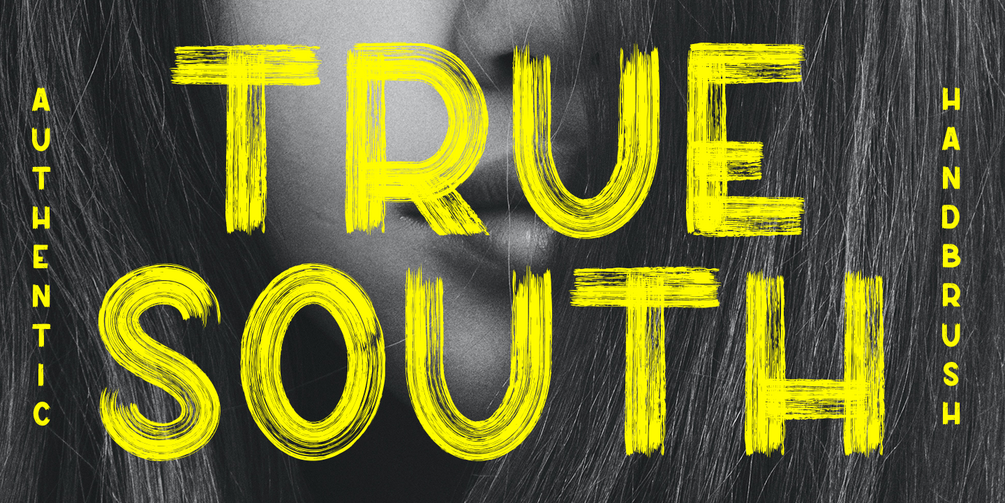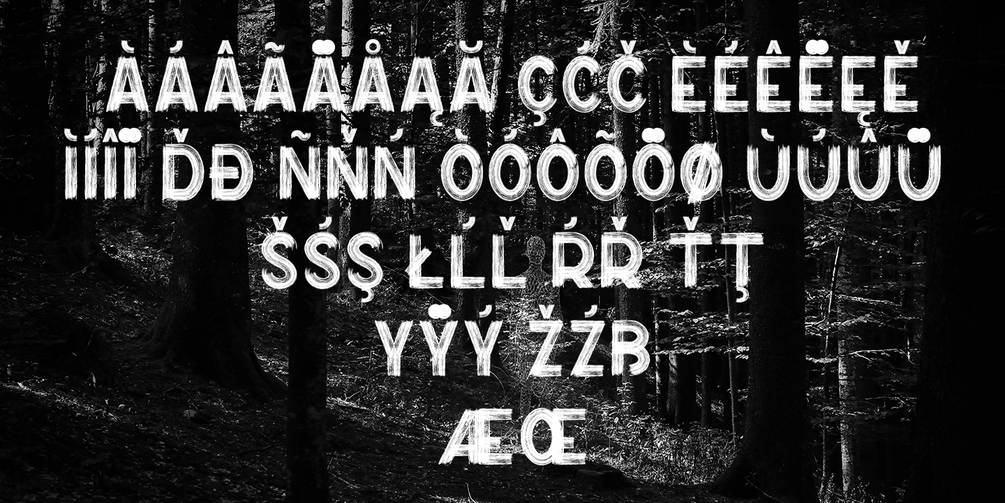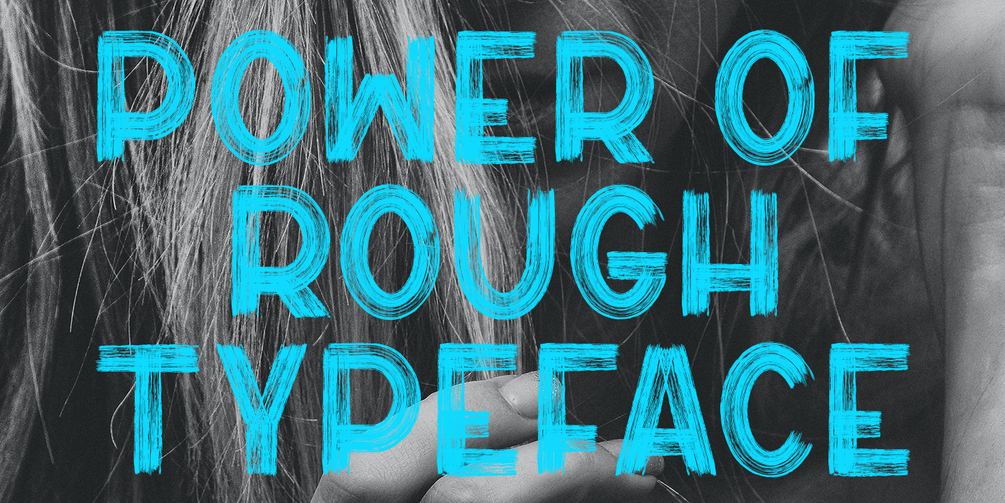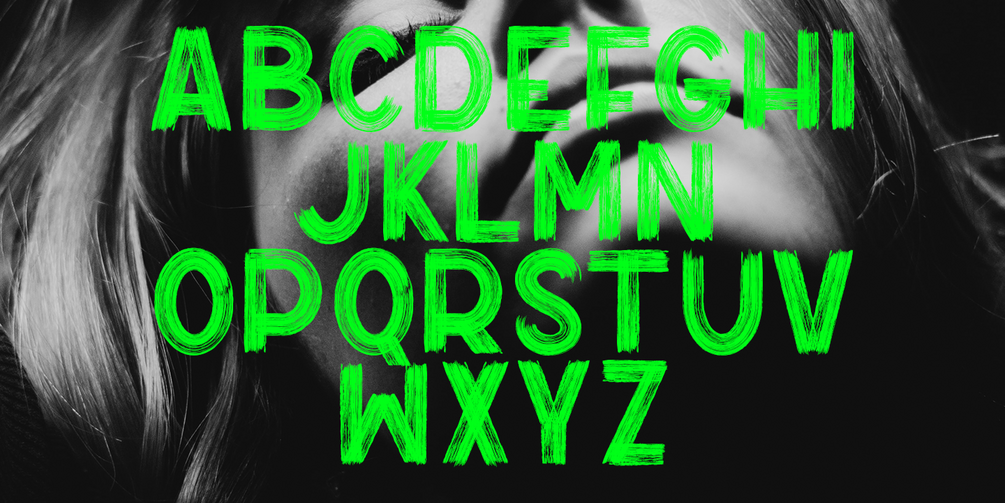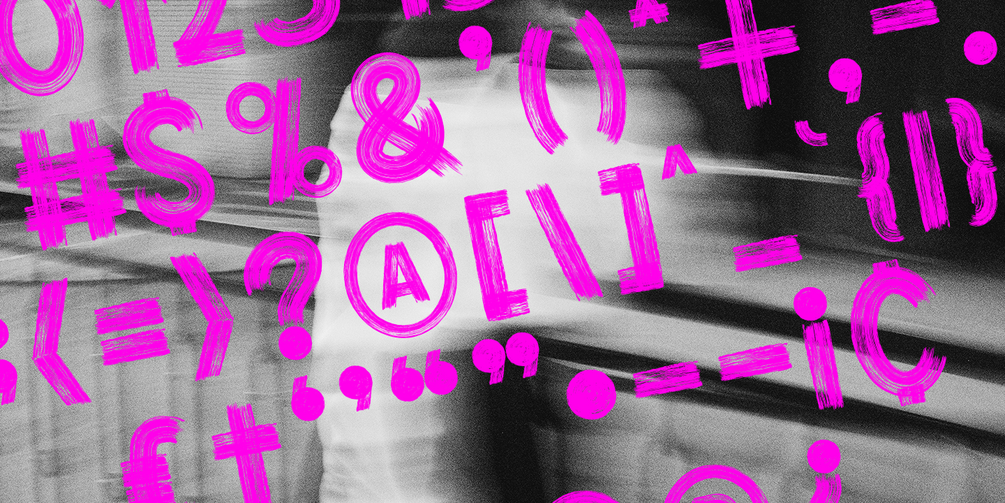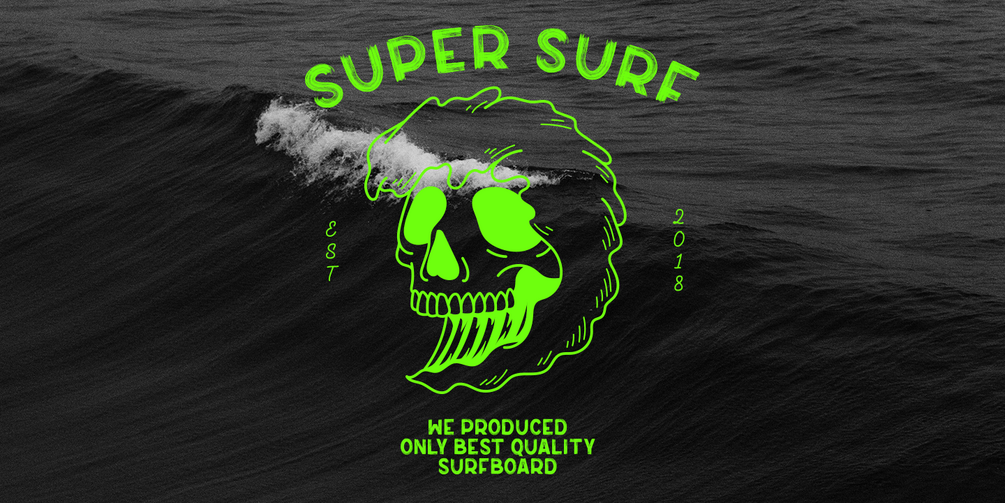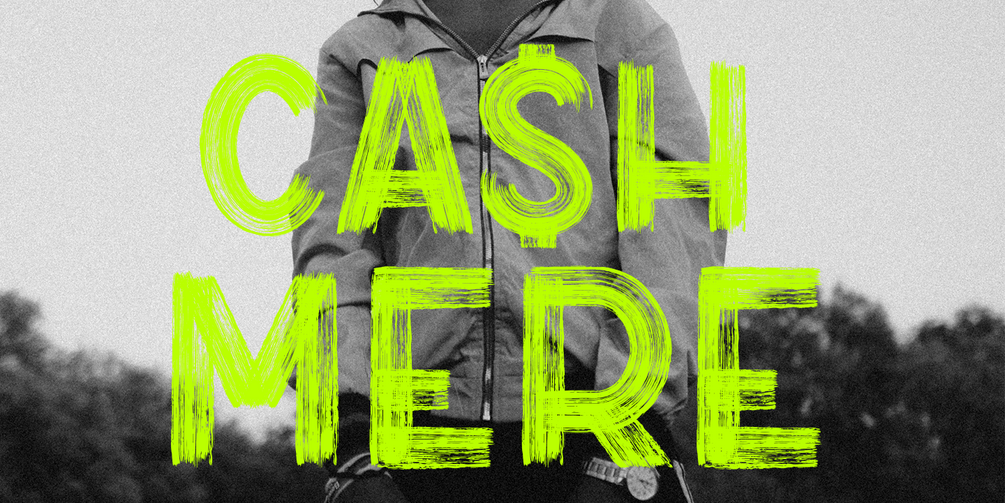
True South - Sans Serif Brush Fonts
Introducing True South Authentic Hand brush Fonts.
this font made by 100% real brush to get real texture,
strong but still calm.
good for your product digital ads, thumbnail video, movie poster, book cover.
as long you can match your graphic this font should be an option.
What's Character Included ?
• Uppercase
• Lowercase
• Symbols
• Numerals
• Multilinguals